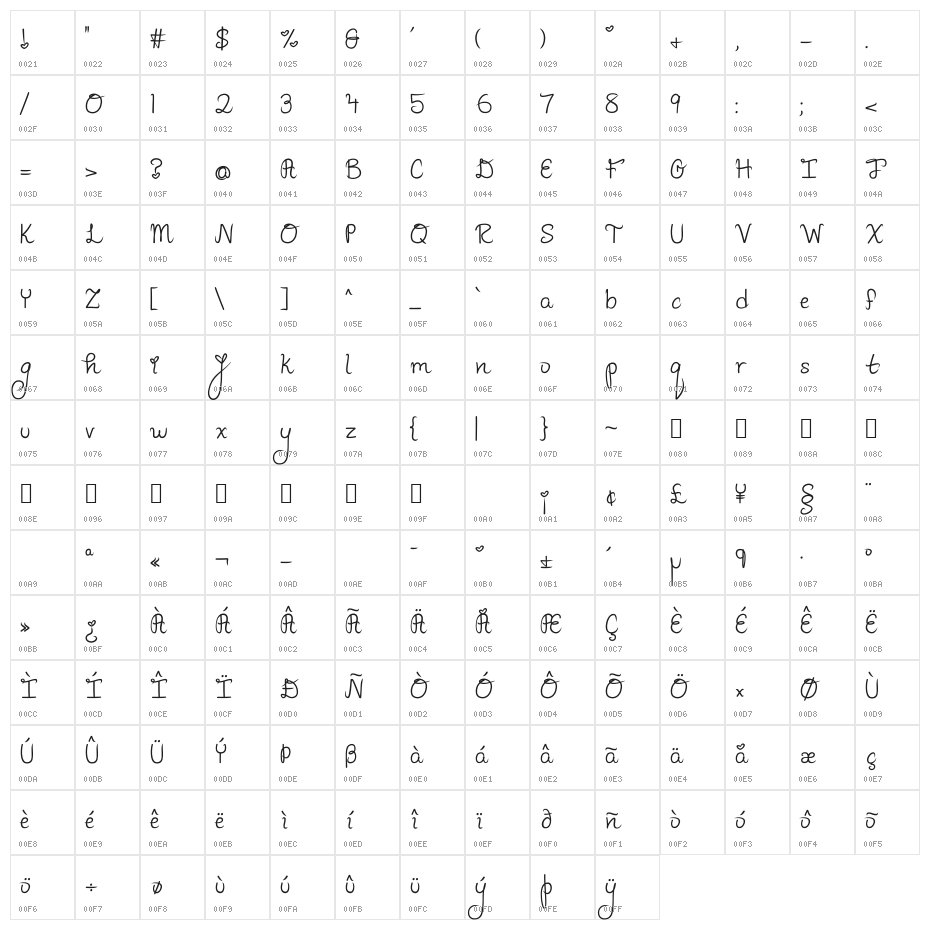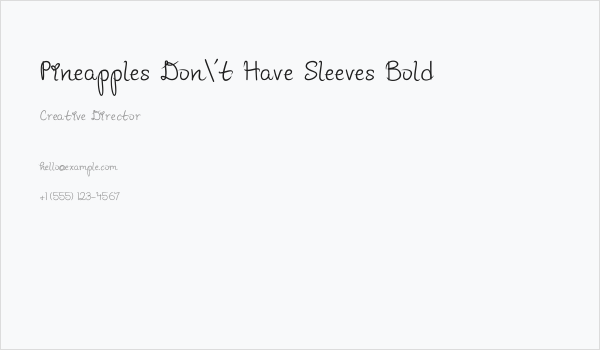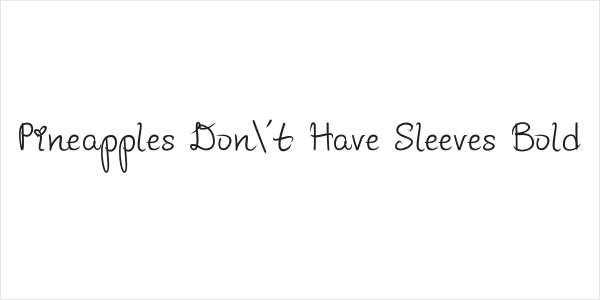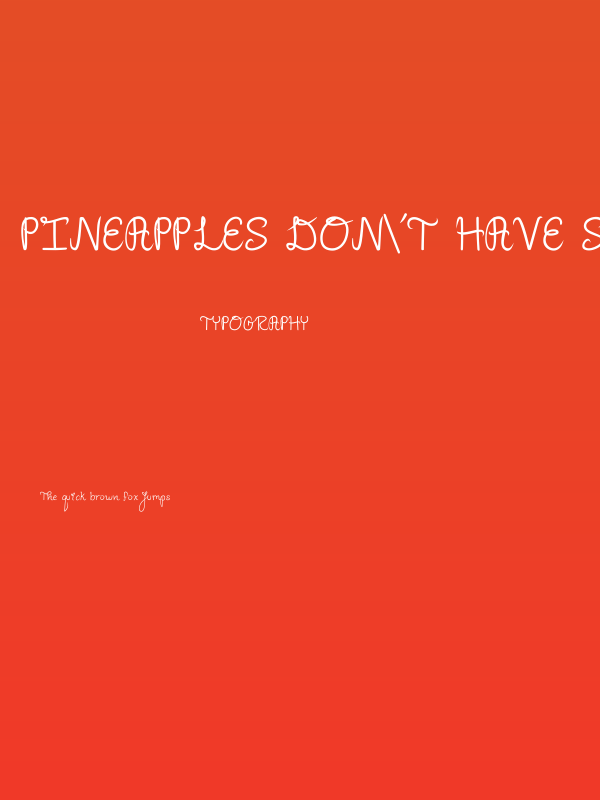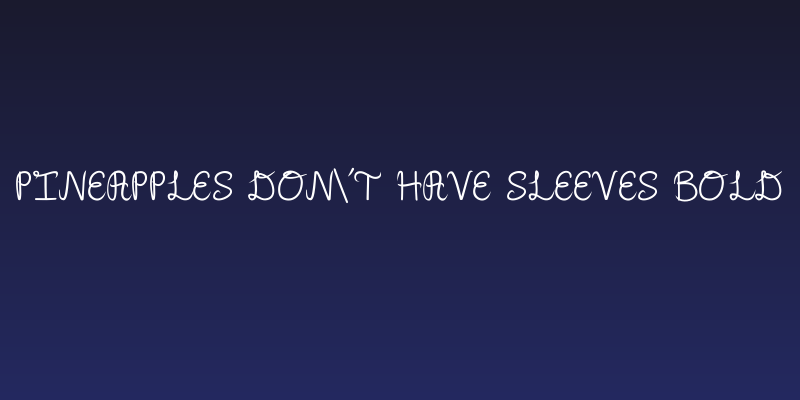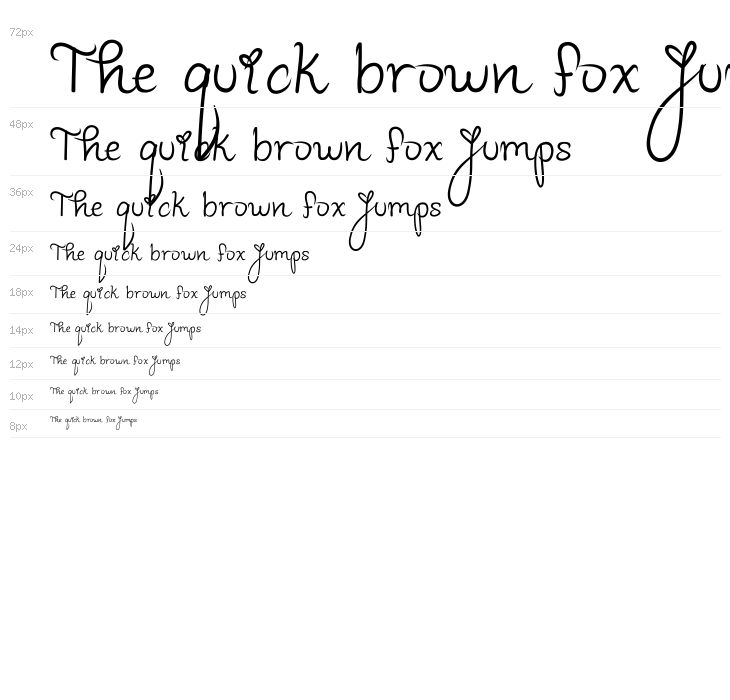
Pineapples Don't Have Sleeves Bold Font
Pineapples Don't Have Sleeves Bold Description
This playful and whimsical font features a handwritten style with a bold presence. The characters are crafted with a flowing, cursive design that includes unique loops and swirls, giving it a lively and energetic feel. The uppercase letters are distinct with their exaggerated curves, while the lowercase letters maintain a consistent flow, enhancing readability. Numbers and special characters are designed to match the playful aesthetic, incorporating heart shapes and other decorative elements. This font exudes a sense of fun and creativity, making it ideal for projects that require a personal touch.
| Proposed Projects | Perfect for greeting cards, playful branding, children's books, and creative invitations. |